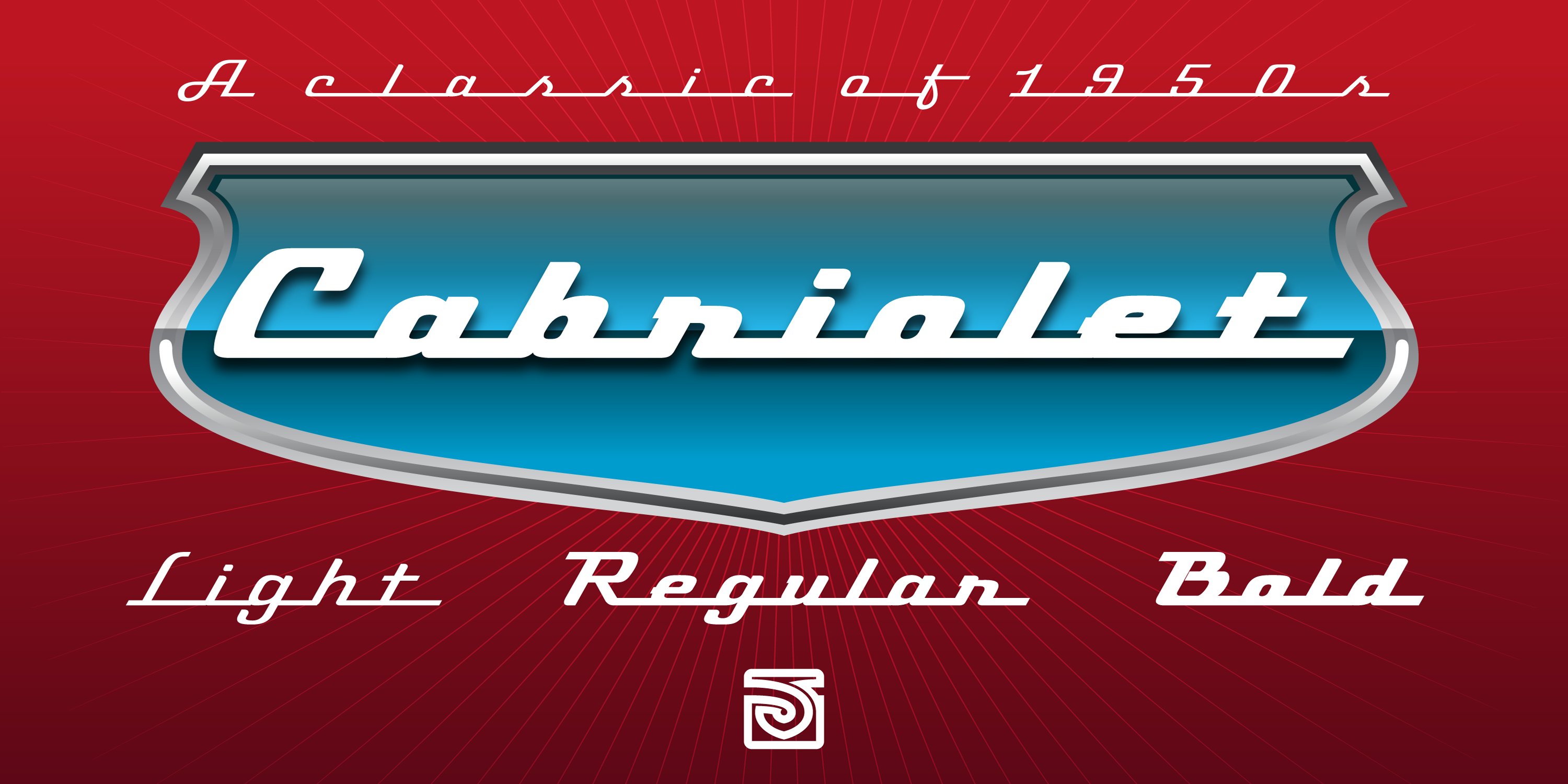
Cabriolet Font is perfect for luxury automotive branding, vintage car show materials, classic convertible advertisements, high-end racing graphics, elegant travel magazines, sophisticated lifestyle marketing, premium resort communications, upscale automotive dealerships, refined summer vacation promotions, and exclusive driving experience materials. This elegant typeface excels in applications where automotive luxury and open-air sophistication need to be communicated with wind-swept elegance and timeless style that captures the essence of luxury motoring and refined driving experiences.
What makes Cabriolet Font exciting is its remarkable ability to embody the freedom and elegance of open-top motoring through its gracefully flowing letterforms that seem to capture the exhilarating sensation of driving with the top down on a perfect summer day. The font reflects the spirit of automotive luxury and carefree sophistication with its streamlined construction and dynamic proportions that suggest the sleek lines of classic convertibles and the effortless grace of wind-swept travel. Its carefully crafted character details and sophisticated personality create an atmosphere of refined adventure that resonates with driving enthusiasts and luxury lifestyle connoisseurs who appreciate the timeless appeal of convertible motoring.
The Cabriolet Font family typically includes Light, Regular, Medium, and Bold weights, each maintaining the signature flowing characteristics and automotive elegance. Some versions offer Italic variants with enhanced dynamic elements that amplify the sense of motion, decorative alternatives that reflect luxury styling, and extended character sets for international luxury markets. The family may also include condensed styles for efficient layout applications and display cuts optimized for maximum visual impact in automotive and lifestyle marketing requiring sophisticated presentation.
Whether you're creating luxury automotive brands, premium lifestyle materials, or sophisticated travel communications, Cabriolet Font Free Download delivers the perfect open-air elegance your luxury-focused projects deserve. Its automotive character and sophisticated styling make it an invaluable choice for luxury car manufacturers, premium resorts, and lifestyle brands working in automotive luxury, upscale travel, and refined lifestyle sectors where authentic sophistication and timeless elegance are essential for attracting discerning clientele who appreciate the finer aspects of luxury living.